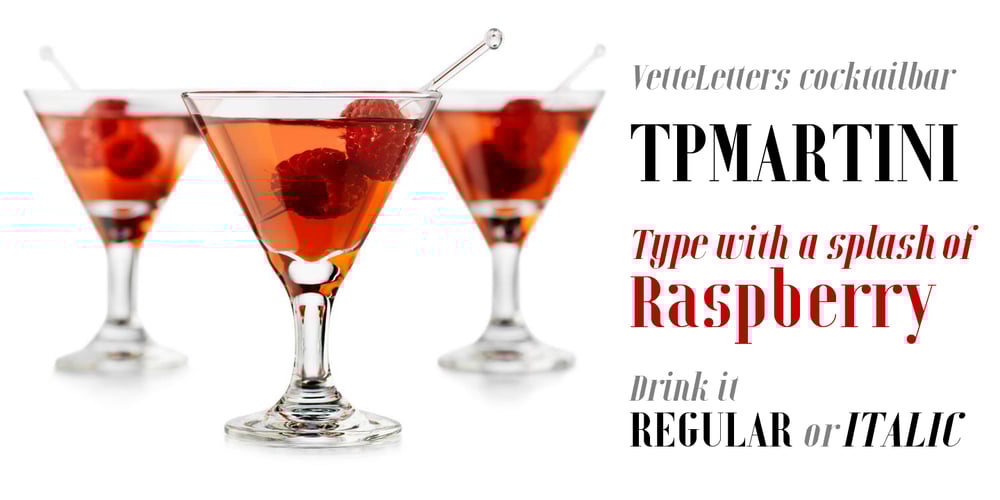
VLNL Tp Martini Font Family was designed by Martin Lorenz and published by VetteLetters. VLNL Tp Martini contains 2 styles and family package options. Our chef Martin Lorenz likes to mix cool and fresh cocktails – shaken, not stirred! You have to taste his awesome Martini or mix it yourself! To make matters more easy, cocktail master Martin reveals his special recipe: “The TpMartini refers esthetically to typefaces drawn with a pointed nib as the Bodoni or Didot, but with the clear distinction that it is obviously constructed by modules. The visual system for the TpMartin is based on a square 5×9-unit grid and three different basic forms with which the font and other elements are designed. The basic forms consist of a straight line and circles of two different sizes. The line can be extended, but the circles retain their related proportions.” One piece of advice: Don’t drink and type!